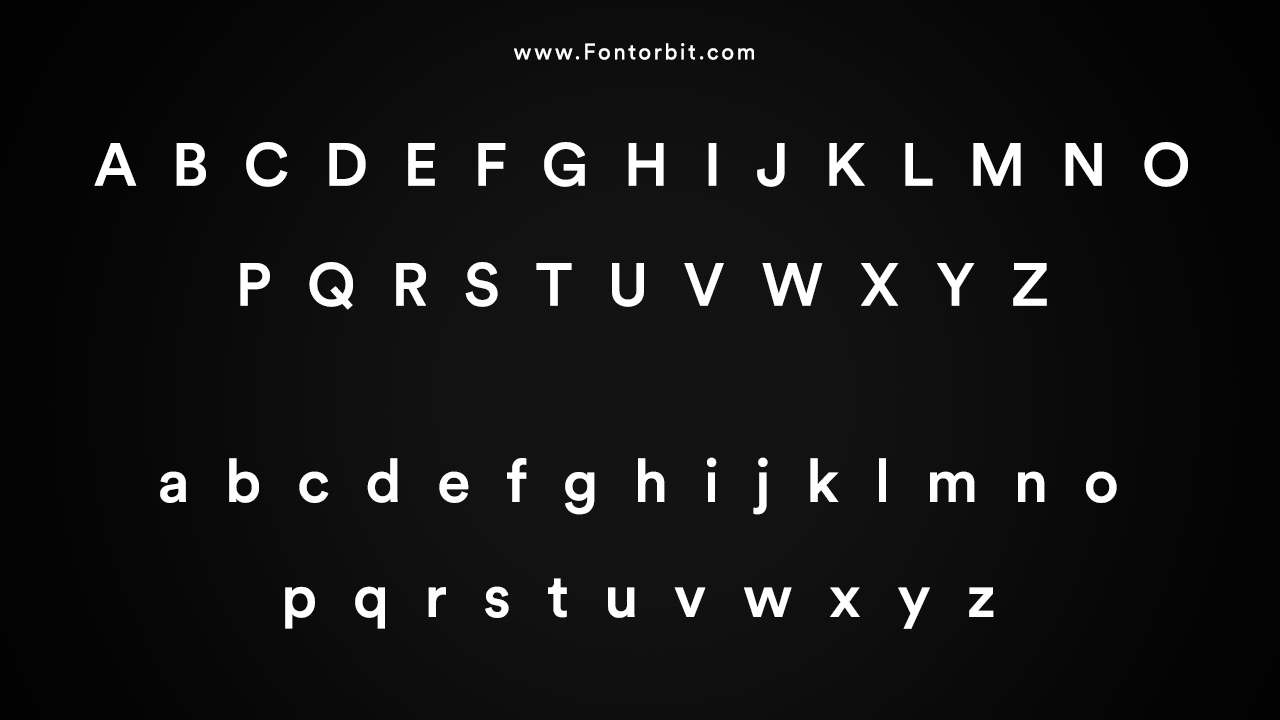
Circular Std font is a widely recognized geometric sans-serif typeface created by Swiss designer Laurenz Brunner. Initially released in 2013 by Lineto, this font has gained popularity for its clean, versatile, and modern look. It is part of the Circular family, which combines modernist geometric forms with subtle quirks, giving it a distinct character and appeal.
Circular Std Font Family Includes
The Circular Std family features smooth curves and circular shapes, making it suitable for print and digital applications. It has multiple weights and styles, allowing designers to work with various typographic hierarchies.
- Circular Std Light
- Circular Std Book
- Circular Std Medium
- Circular Std Bold
- Circular Std Black
Notable Uses Of Circular Std
Various well-known brands and organizations have used Circular Std due to its minimalist yet striking appearance. Some notable uses include:
- Spotify: Circular Std has been adopted as the brand’s main typeface, adding to its sleek, user-friendly design.
- Dropbox: The company uses Circular Std to create a modern and consistent visual identity across its digital platforms.
- Airbnb: Circular Std has been incorporated into promotional materials and online content for its clean readability.
Circular Std is perfect for digital and print mediums, particularly in branding, UI/UX design, and web typography. Its legibility, balance, and modern aesthetic make it ideal for corporate identities, app interfaces, headlines, logos, and more.
Circular Std stands out as a highly versatile and modern typeface that’s suitable for a wide range of applications. Its clean lines and geometric forms create a professional look while remaining approachable. While it may not be free, similar fonts can offer a comparable aesthetic for designers on a budget.
FAQs:
3.What Brands Use Circular Std?
Spotify, Dropbox, and Airbnb are some notable brands using Circular Std.
4.What Is The Font Style Of Circular Std?
It is a geometric sans-serif typeface.
5.Can I Use Circular Std For Web Design?
Circular Std works exceptionally well in digital applications, especially web design.
6.Does Circular Std Come With Multiple Weights?
Yes, it comes in various weights, including Light, Book, Medium, Bold, and Black.
7.What Is The Main Advantage Of Circular Std?
Its versatility, modern look, and clear legibility make it a favorite among designers.